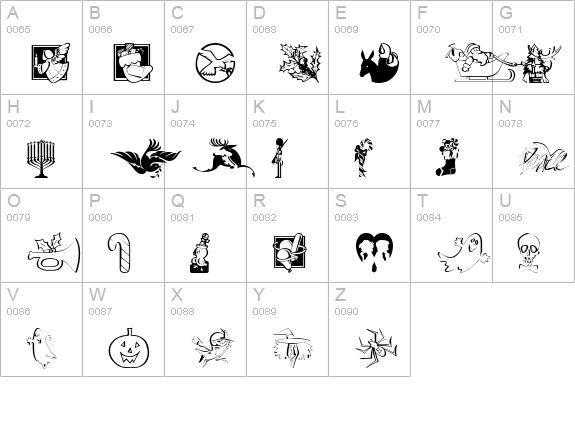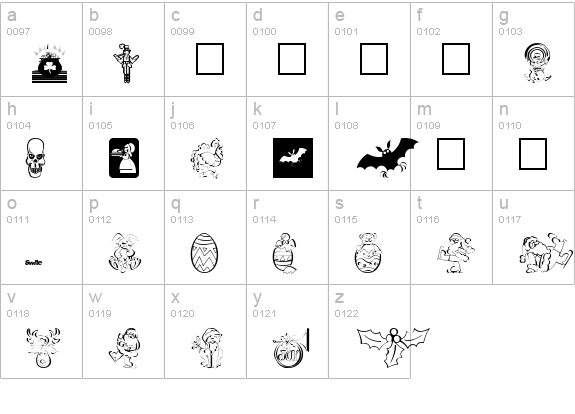
Holiday Symbols Font Details
Introducing Holiday Symbols font - a delightful and whimsical typeface perfect for adding a touch of festive cheer to your designs. This unique font features a collection of holiday-themed symbols, including snowflakes, ornaments, candy canes, and more, making it ideal for creating eye-catching holiday cards, invitations, posters, and more. Holiday Symbols font is not only fun and festive, but it is also free to download at FontsMarket.com! Whether you're working on a personal project or creating designs for clients, this font is a great addition to your font library. Spread the holiday spirit with Holiday Symbols font and bring a touch of magic to your designs today.